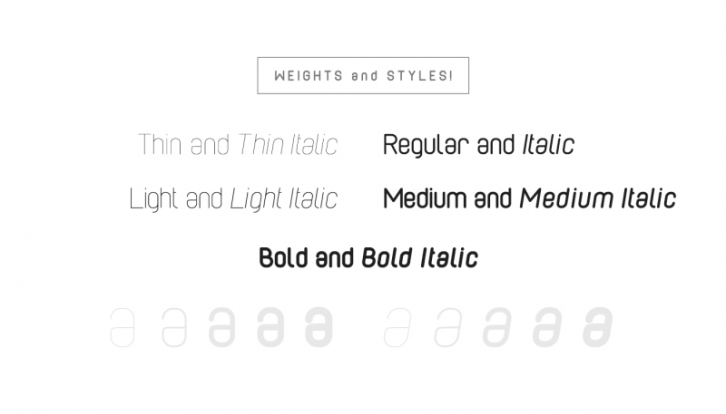
Cabo Rounded is a sans serif font family, with rounded edges. It comes in 5 weights and 10 styles.
THE STORY
It all began last year, when I was redesigning my personal logo. Back in 2013 I think, I designed the first logo for my designer profile - cabo - using as a base the font Helvetica. I was pleased with it, but last year it was time for an upgrade! Therefore I started playing around with shapes and strokes in Illustrator, in order to recreate my new identity, without getting too far from the original.
While working on creating characters for it, I realized that the style I was starting to create it might actually make a great font. So I started working on the rest of the letters! Within hours, the first drafts were ready! I was really happy with what I managed to create, so I started looking for a way to turn it into an actual font!
Big was my dissapointment when I found that all of the tools to do so were expensive, so I chose to postpone the project for a while.
A couple of months ago, Fontself was released! Fontself is an Illustratpr addon that gives you the possibility to create your own font with just a couple of clicks! After I managed to buy it, I started working on this new project - cabo rounded - and managed to create it in 5 weights: thin, light, regular, medium and bold!
Each weight comes with an italic version of it!